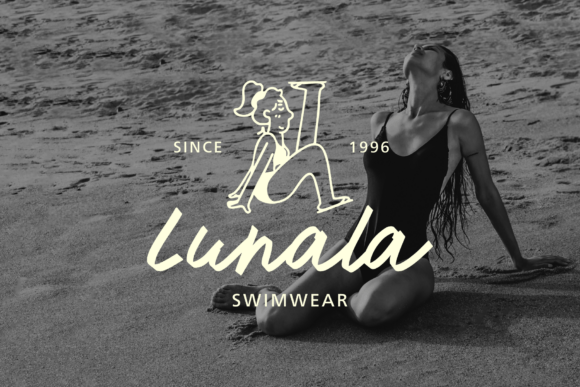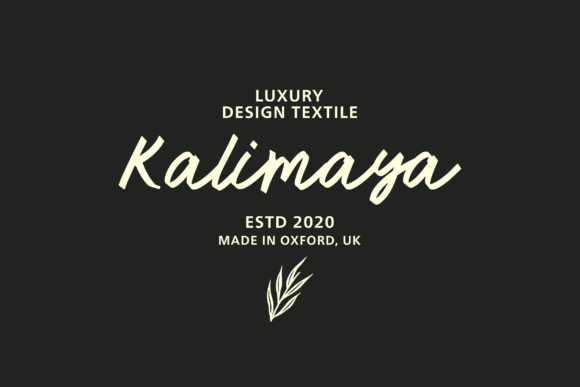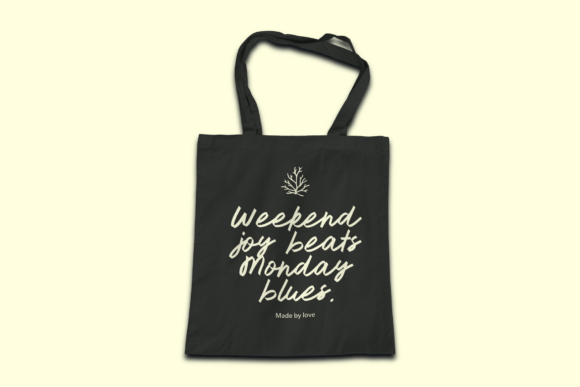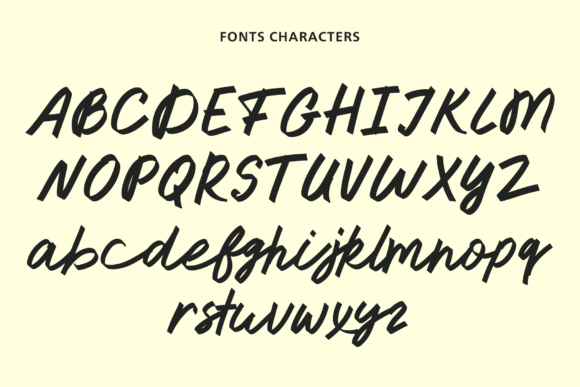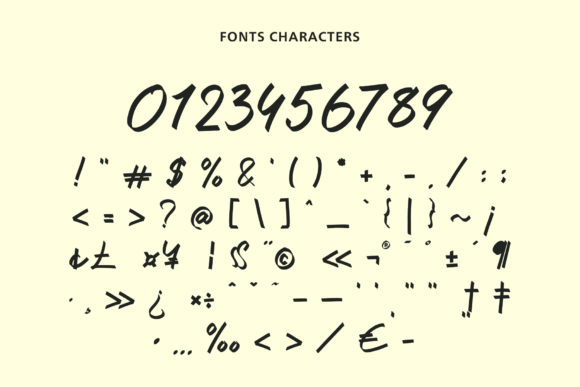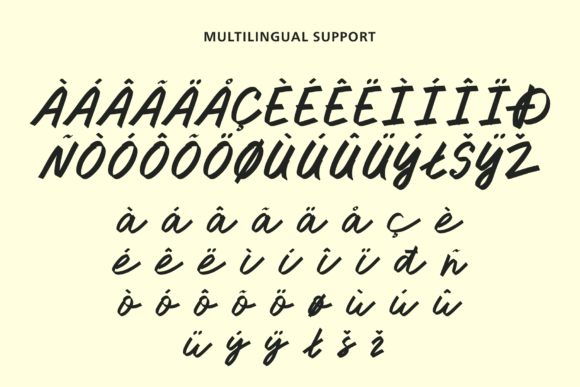
Introduction to Flonyla Font
Flonyla is a natural handwritten script font designed to reflect the essence of true handwriting.
With its fluid strokes and organic curves, Flonyla brings a personal, warm touch to any creative project Perfect for branding, invitations, social media graphics, quotes, packaging, and more.
Key Features of Flonyla Font